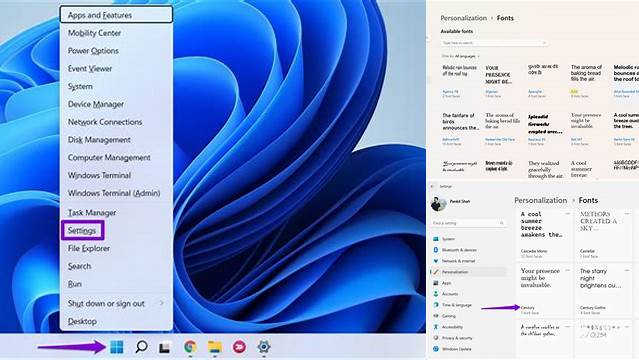
Windows 11 Default Fonts: A Comprehensive Guide
Introduction to Windows 11 Default Fonts
Hey guys! Ever wondered about the default fonts in Windows 11? Well, you're in the right place! Choosing the right font is super important for how your documents, presentations, and even your overall computer experience look and feel. Think of fonts as the clothes your words wear; they can make a huge difference in readability and aesthetics. Windows 11 comes packed with a variety of fonts to suit different needs and preferences, and understanding what’s available can help you make the most of your system. In this article, we're going to dive deep into the default fonts that come pre-installed with Windows 11, exploring their unique characteristics, common uses, and how they contribute to the overall user interface. Knowing these fonts can seriously level up your design game, whether you're working on a professional document, creating a presentation, or just tweaking your system’s appearance. So, let’s get started and unravel the world of Windows 11 fonts together! We will explore the classics, the modern choices, and even some hidden gems that you might not know about. By the end of this guide, you'll be a font aficionado, ready to make informed decisions about your typography. Plus, we’ll touch on how these fonts impact accessibility and readability, ensuring everyone can enjoy your content. Let's make your digital world a more beautiful and readable place, one font at a time!
Exploring Key Default Fonts in Windows 11
Let's get into the nitty-gritty and explore some of the key default fonts you'll find in Windows 11. These fonts are the unsung heroes of your operating system, working tirelessly to display text clearly and beautifully across all your applications. First up, we have Segoe UI, which is the star of the show when it comes to the Windows 11 interface. You'll see Segoe UI everywhere – from menus and dialog boxes to app interfaces. It's a modern, clean, and highly readable font, designed to look great on screens of all sizes. Think of it as the reliable friend you can always count on. Then there's Calibri, which has been a long-time favorite and a staple font in the Microsoft Office suite. While it's being phased out as the default in Office, it's still a solid choice for documents and reports. Calibri is known for its soft, rounded edges, giving it a friendly and approachable vibe. Next, let’s talk about Arial. Arial is like the classic white t-shirt of fonts – simple, versatile, and always in style. It’s a sans-serif font that works well in a variety of contexts, from body text to headlines. If you need a font that’s universally recognized and easy to read, Arial is your go-to. We also have Times New Roman, the old-school serif font that’s been a workhorse in academic and formal writing for decades. Its traditional look lends a sense of authority and professionalism to your documents. If you're writing a research paper or a formal letter, Times New Roman is a safe bet. These fonts each bring something unique to the table, and understanding their strengths can help you choose the right one for your needs. But the font party doesn't stop here; Windows 11 has even more options to explore! So, stick around as we dive deeper into the world of typography.
Fonts for Different Writing Scenarios
Choosing the right font isn't just about aesthetics; it's also about making sure your message is clear and impactful. Different writing scenarios call for different fonts, so let's break down some common situations and the fonts that shine in each. For formal documents like reports, essays, or legal papers, you'll want fonts that exude professionalism and authority. Times New Roman is a classic choice here, with its serif style giving a traditional and serious feel. Another great option is Cambria, a modern serif font that's highly readable and looks great in print. If you're aiming for a clean and contemporary look, Arial is a solid sans-serif option that works well in formal settings too. Now, if you're working on creative projects like presentations, brochures, or website content, you have a bit more room to play. Segoe UI is a fantastic choice for presentations, offering a clean and modern aesthetic that's easy on the eyes. For brochures and marketing materials, you might want to explore fonts like Corbel or Calibri, which have a friendly and approachable vibe. Don't be afraid to mix and match fonts to create visual interest, but always ensure your font choices complement each other and maintain readability. When it comes to everyday writing tasks like emails and memos, readability is key. Calibri and Arial are excellent choices for these situations, as they're clear, concise, and easy to read on screens. You might also consider Verdana, a sans-serif font specifically designed for on-screen readability. And for those long documents or reports, choosing a font that minimizes eye strain is crucial. Serif fonts like Garamond and Book Antiqua are known for their readability in large blocks of text, making them ideal for lengthy writing projects. Remember, the best font is one that aligns with your purpose and enhances your message. So, take the time to explore your options and find the perfect fit for your writing needs. Let’s ensure your words not only sound great but also look fantastic!
Conclusion: Mastering Windows 11 Fonts
Alright, guys, we've reached the end of our deep dive into Windows 11 default fonts! We've covered everything from exploring the key fonts and understanding their unique characteristics to choosing the right fonts for different writing scenarios and managing your font library. You've learned how to install new fonts, troubleshoot common issues, and ensure your typography always looks its best. By now, you should feel like a true font aficionado, ready to make informed decisions about your font choices and elevate your design game. Remember, fonts are more than just letters on a page; they're a powerful tool for communication and expression. The right font can enhance readability, convey a specific tone or mood, and make your content more engaging. Whether you're crafting a formal report, designing a creative presentation, or simply typing an email, the fonts you choose play a crucial role in how your message is received. So, take the time to explore the vast world of typography, experiment with different fonts, and discover the ones that resonate with you. Don't be afraid to step outside your comfort zone and try something new. You might just stumble upon your next favorite font! And with the knowledge and skills you've gained from this guide, you're well-equipped to tackle any font-related challenge that comes your way. So go forth, create beautiful and impactful designs, and let your fonts speak volumes. Happy fonting, everyone! We hope this comprehensive guide has been helpful in your journey to mastering Windows 11 fonts. Keep exploring, keep experimenting, and most importantly, keep creating!